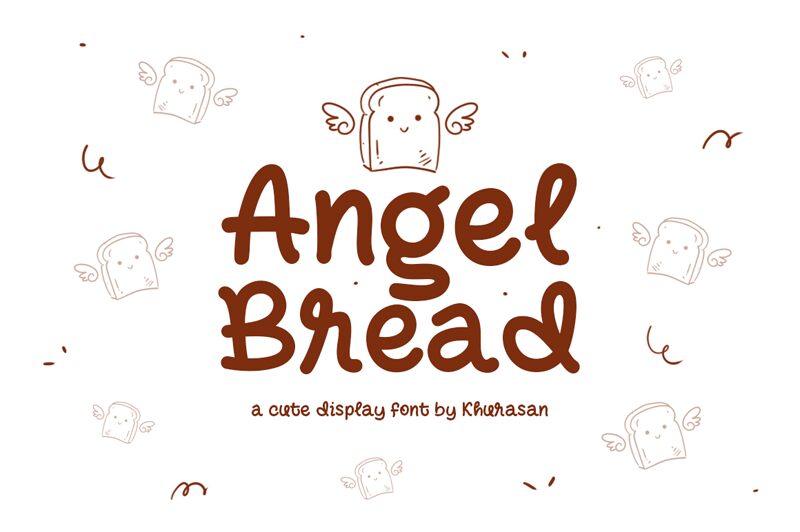
Angel Bread, crafted by Khurasan, embodies the whimsical charm of handwritten elegance. Its playful character forms dance across spaces with a delightful spontaneity, inviting warmth and creativity. The font features beautifully exaggerated loops and curves that evoke a sense of joyful informalness, making it perfect for design projects that aim to connect on an emotional level.
This charming typeface shines in settings like greeting cards, playful branding, or personalized invitations, where its distinct style can truly come alive. Whether you’re crafting a heartfelt message or aiming for an eye-catching logo, Angel Bread effortlessly lends itself to applications that celebrate individuality and expressiveness. With its captivating aesthetics and versatile appeal, this font meets the needs of modern design while maintaining a timeless touch.
Angel Bread